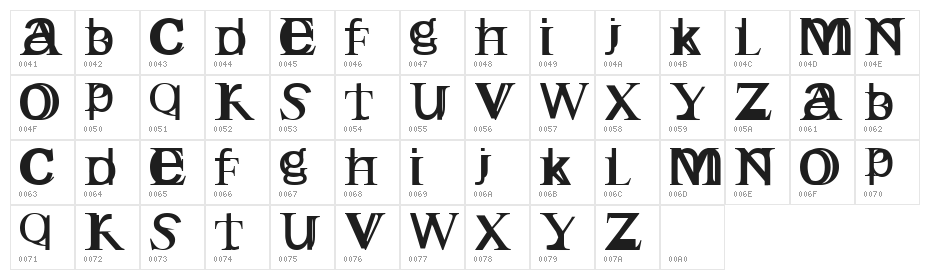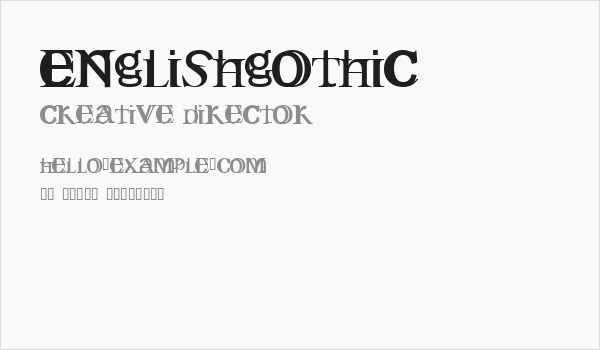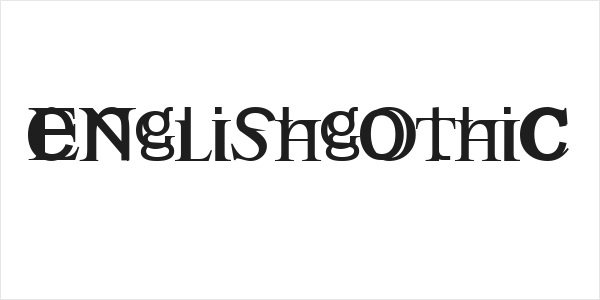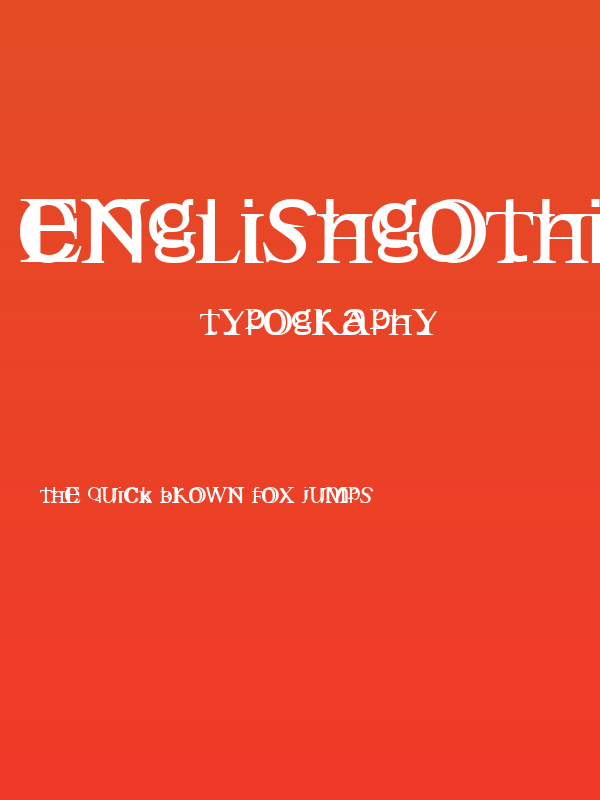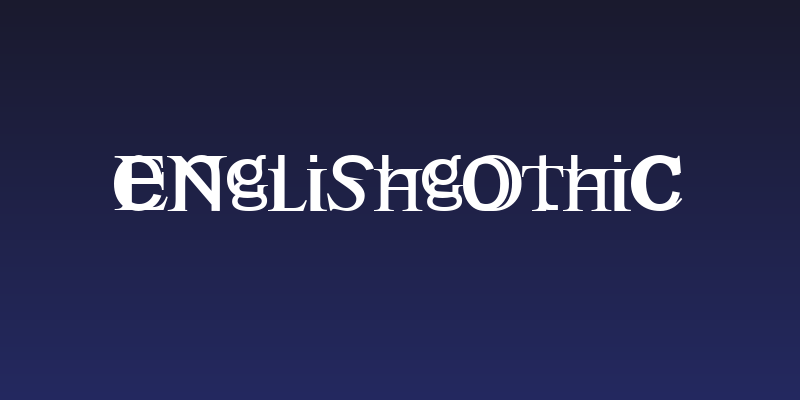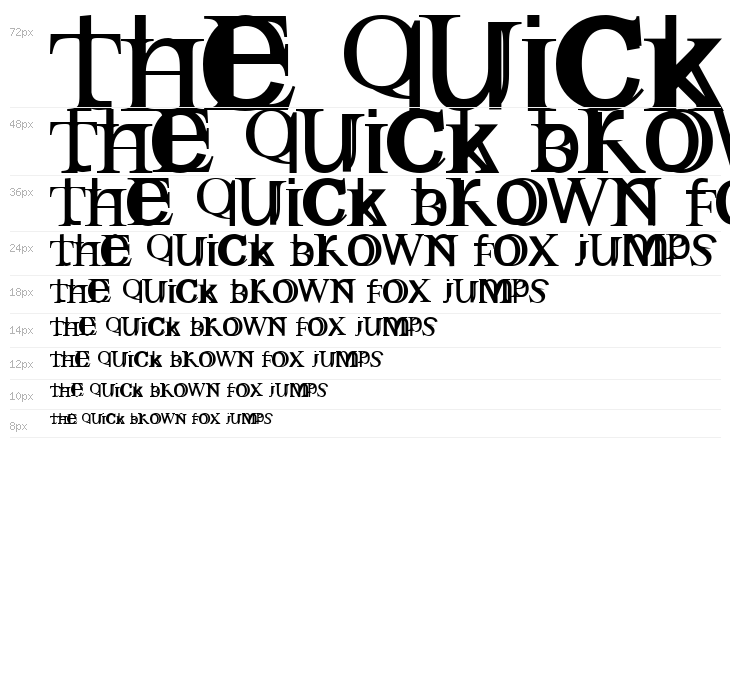
Englishgothic Font
Englishgothic Description
This font features a bold and dramatic style, characterized by its thick strokes and intricate design elements. The uppercase letters exhibit a strong presence with sharp angles and a gothic influence, while the lowercase letters maintain a consistent weight, offering a harmonious balance. The numerals are equally bold, ensuring readability and impact. Special characters are designed with a similar boldness, integrating seamlessly with the overall aesthetic. This font's unique style makes it suitable for projects that require a touch of historical or gothic flair.
| Overall Style | Gothic, Dramatic |
| Proposed Projects | Ideal for use in branding, posters, book covers, and any project requiring a historical or dramatic touch. |